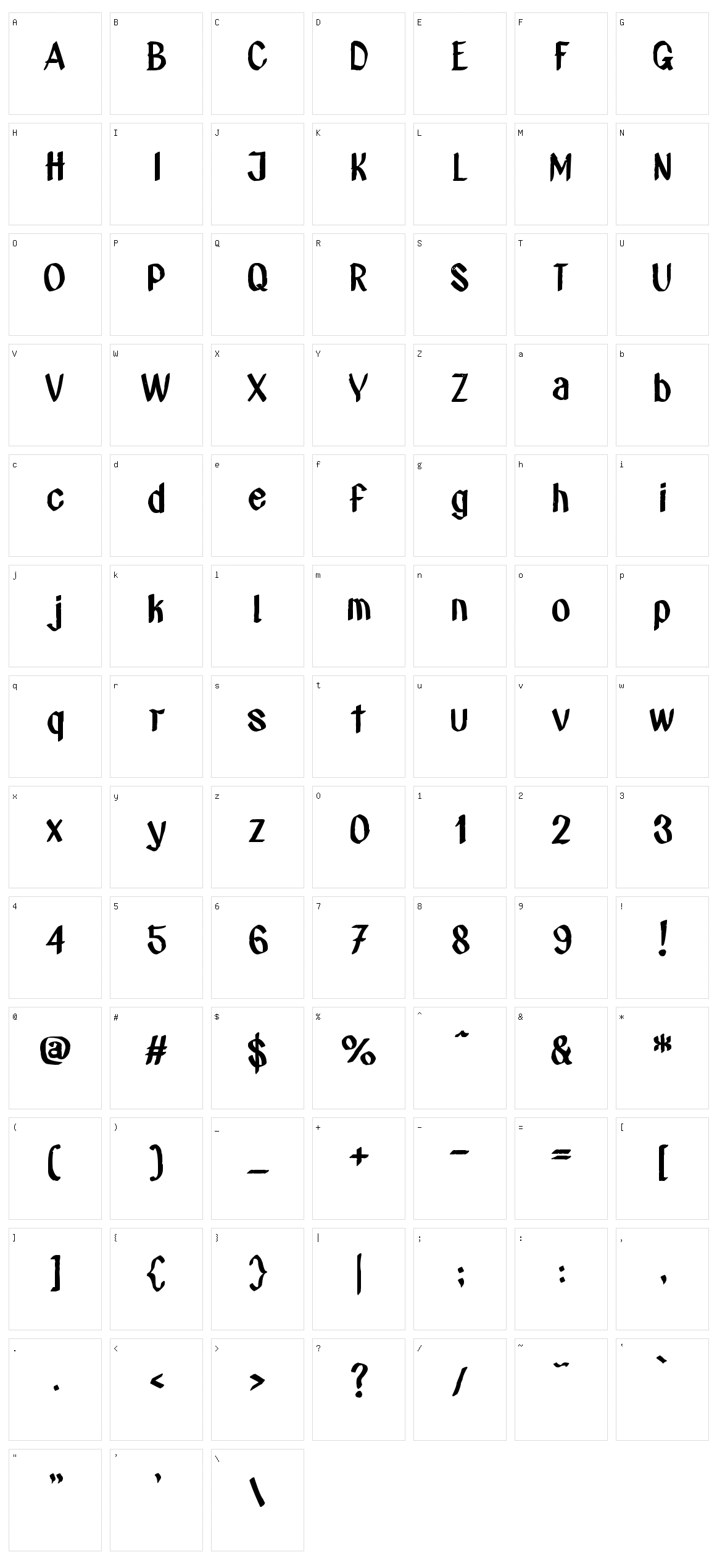
The free font zai Stop Climate Change is carefully designed by Tomasz Skowroński, showcasing a thoughtful balance of creativity and usability and falls under the Eroded font style. When you download the ZIP file, it contains only 343.21 KB of font files, making it lightweight and quick to download. Please review the license details below to understand permitted usage and distribution rights. If license information is not available, we recommend using this font for personal projects only or contacting the author directly for commercial usage permissions.